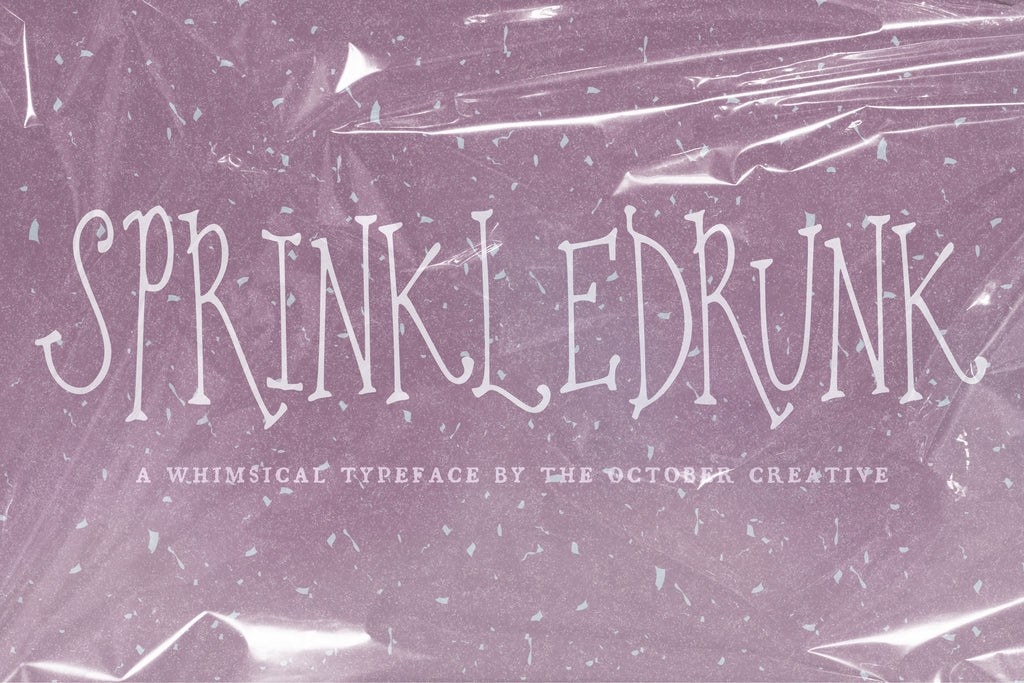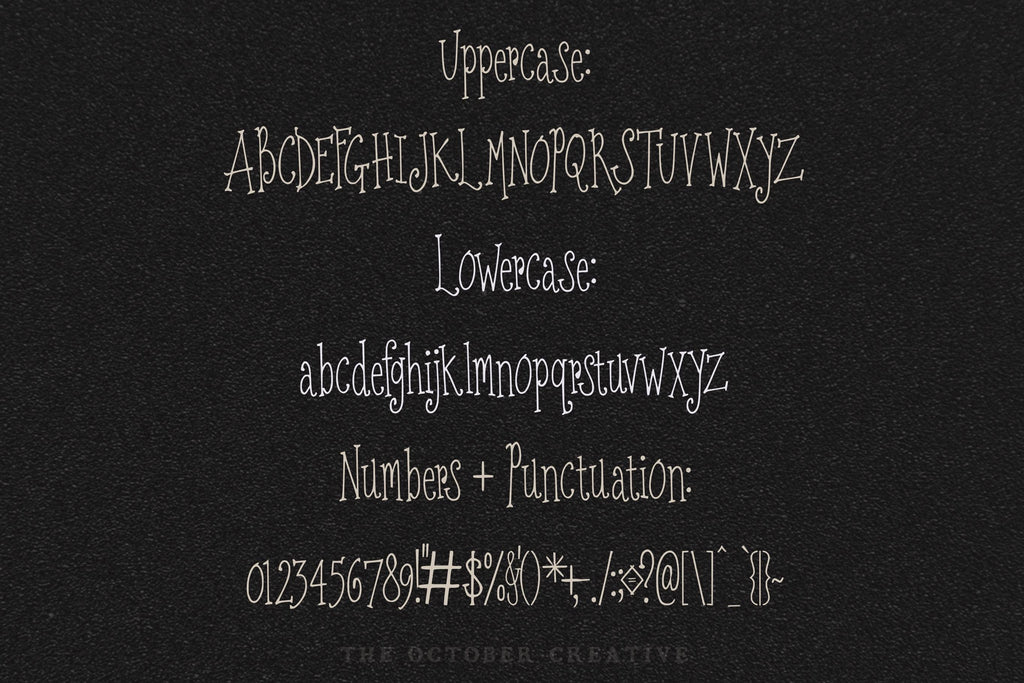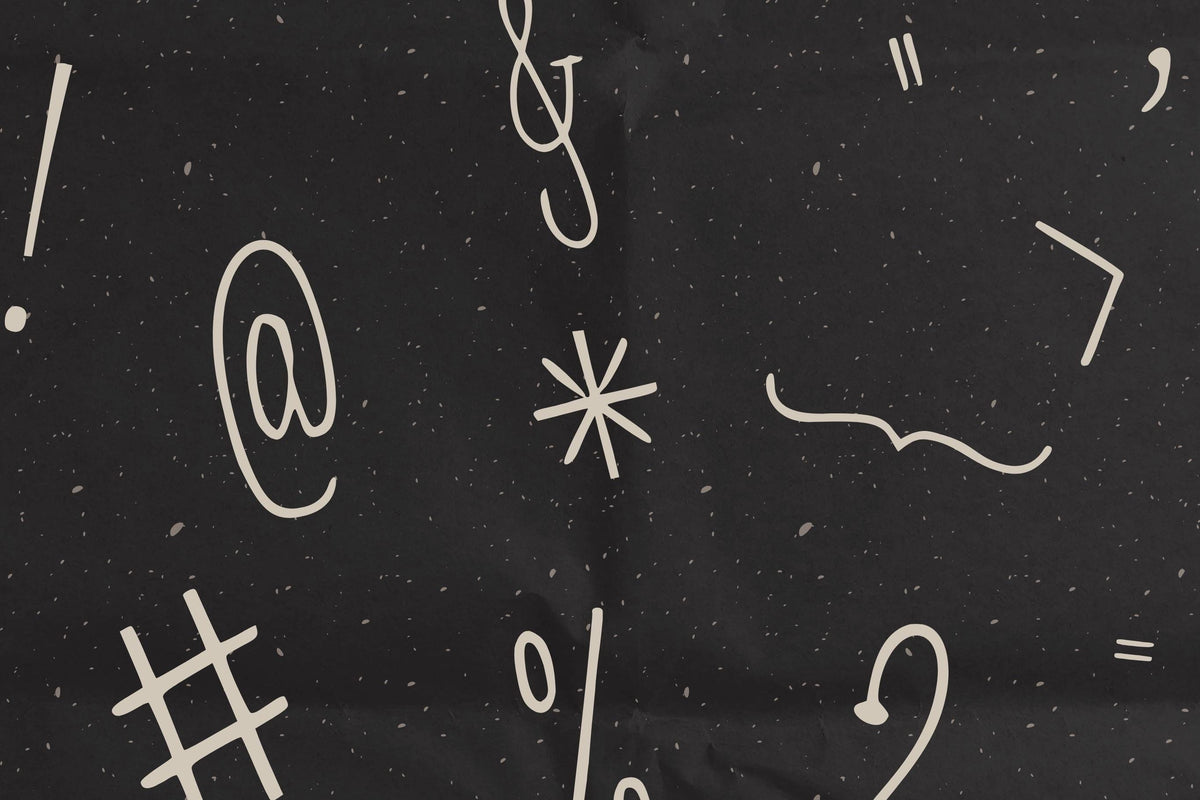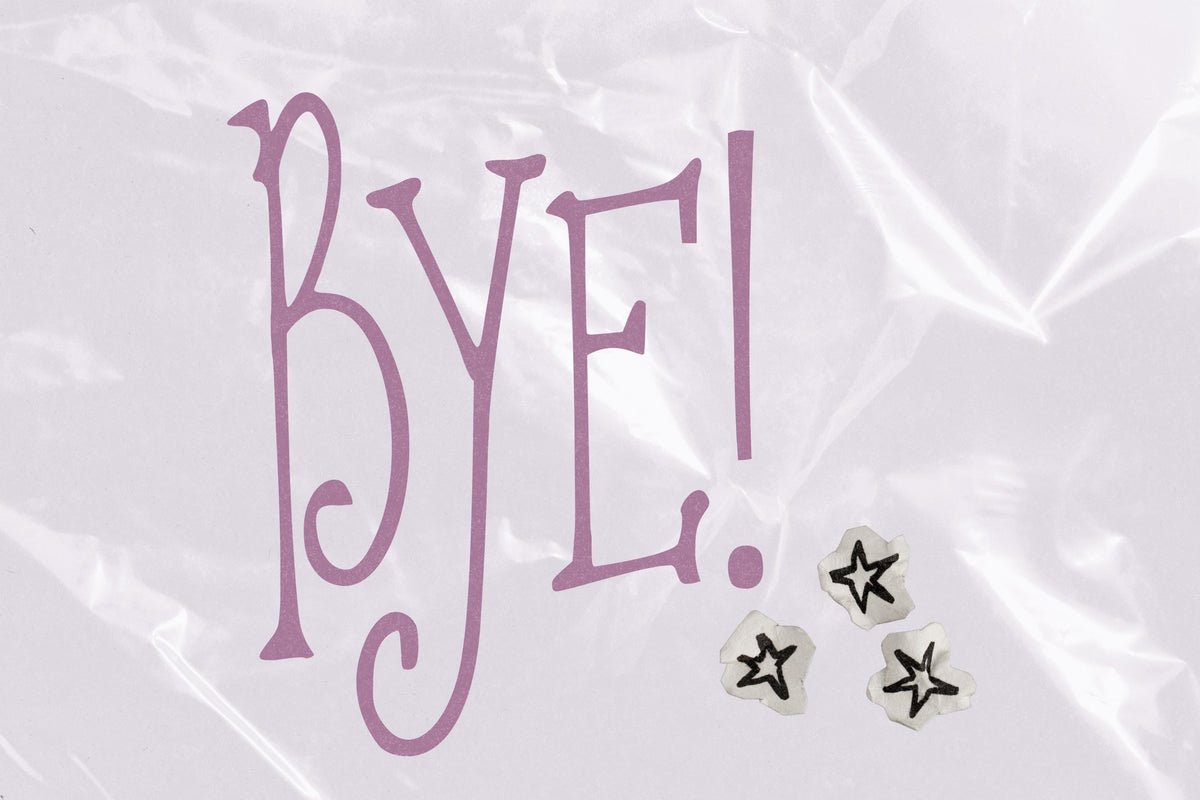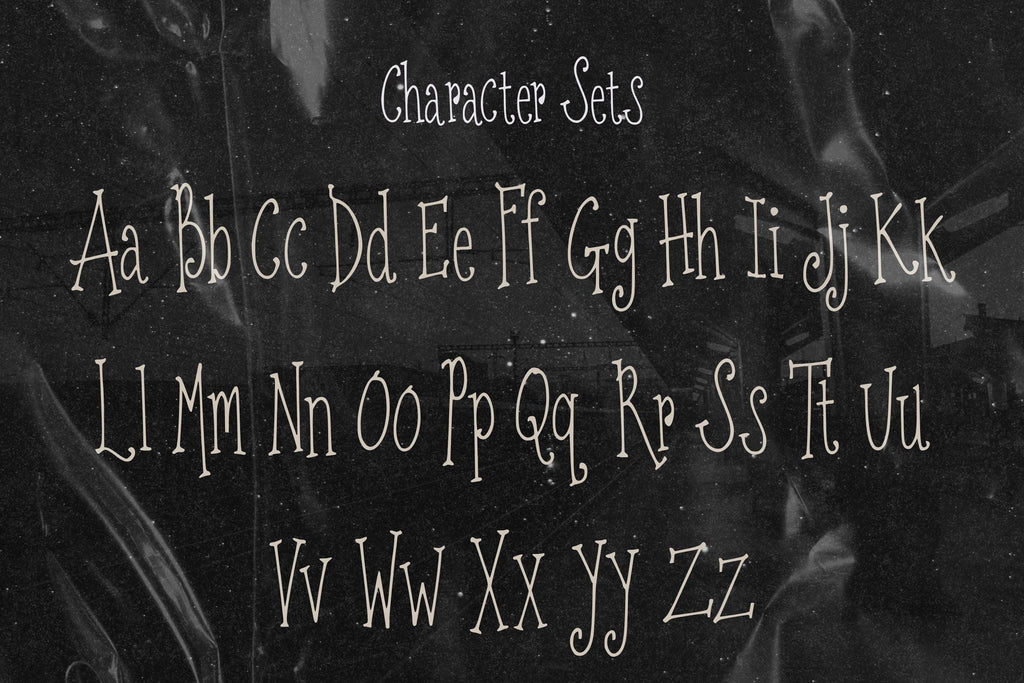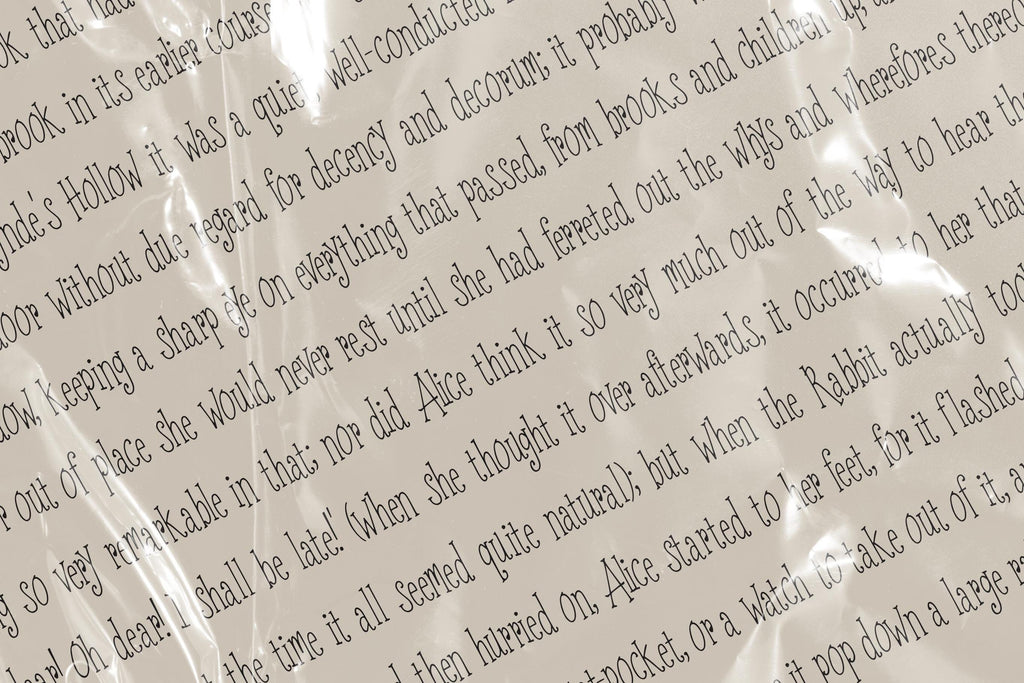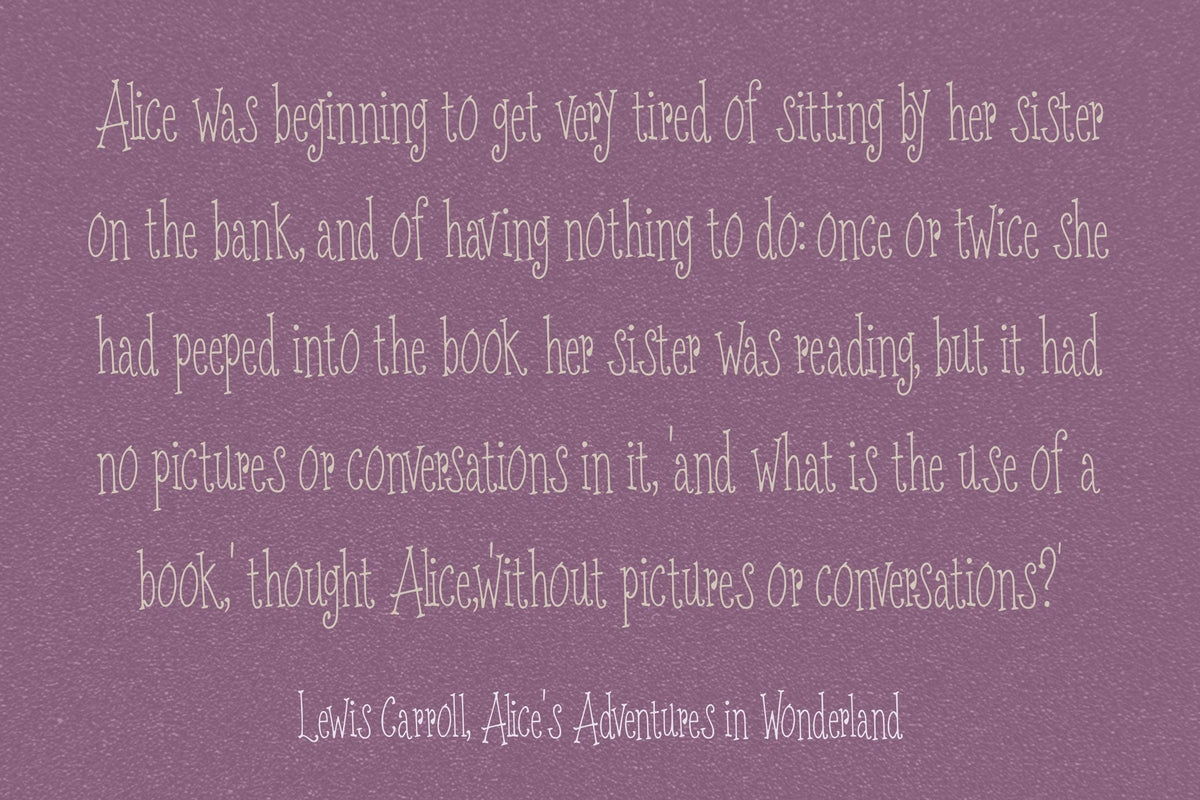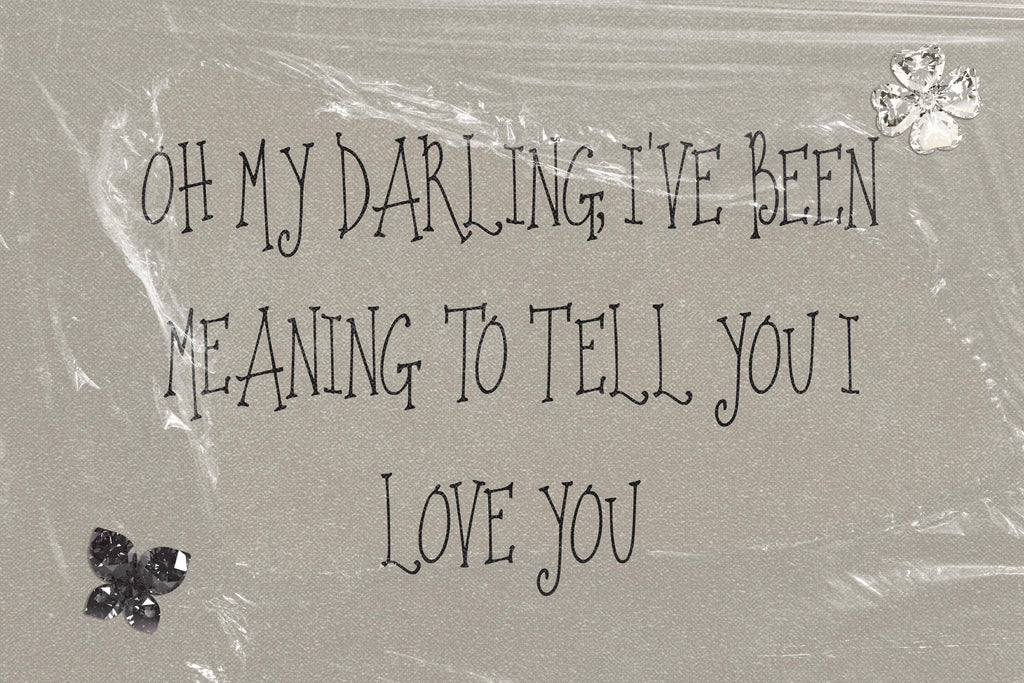
Sprinkledrunk Font
Sprinkledrunk is a skinny, bouncy serif font with mixed-height capitals and tiny curled ends. It suits birthday banners, candy shop labels, dessert menus, and kids' party signs.
• One style: Sprinkledrunk Regular
• Uppercase A to Z, lowercase a to z, numbers 0 to 9, and every standard keyboard punctuation mark and symbol
• Curly quotes and apostrophes, dashes, an ellipsis, and a bullet
• Common accented letters for names, like José, Chloé, Zoë, Renée, and Françoise
• One Regular style, with no alternate characters or ligatures.